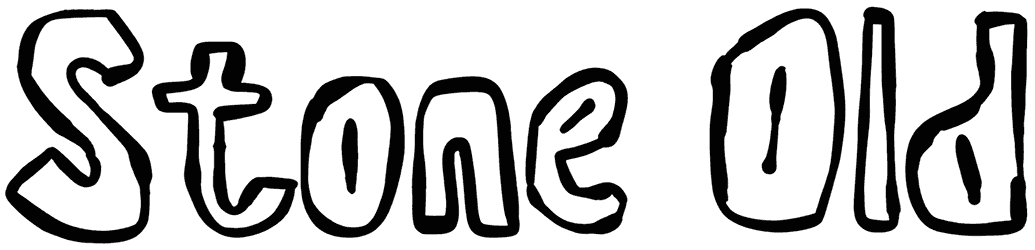
Stone Old Font
So the Stone Old may not look exactly fresh and modern, but it’s more playful than anything you can think of; don’t you agree? Download this stone font and your text will be similar to drawings when you use it for T-shirts, kids’ cartoon logos, etc.
This is exactly what the ancient writing would have looked like if the primitives were familiar with our language and carved the letters on the walls of their caves, a message for many generations ahead.